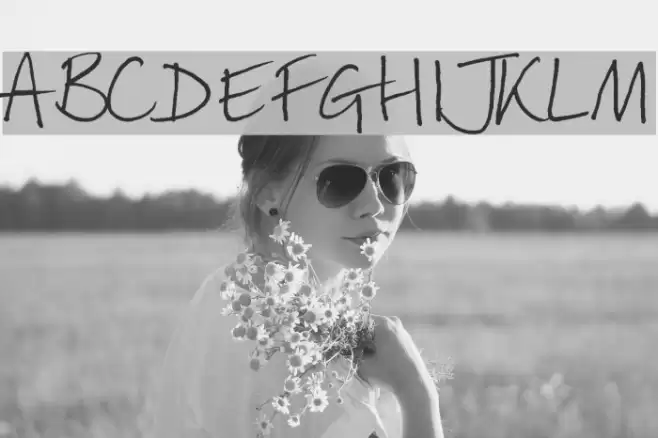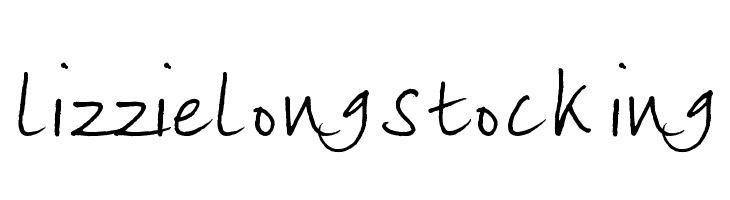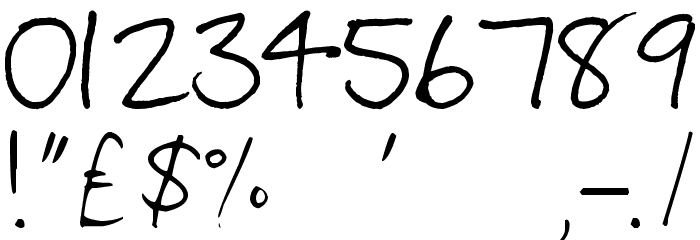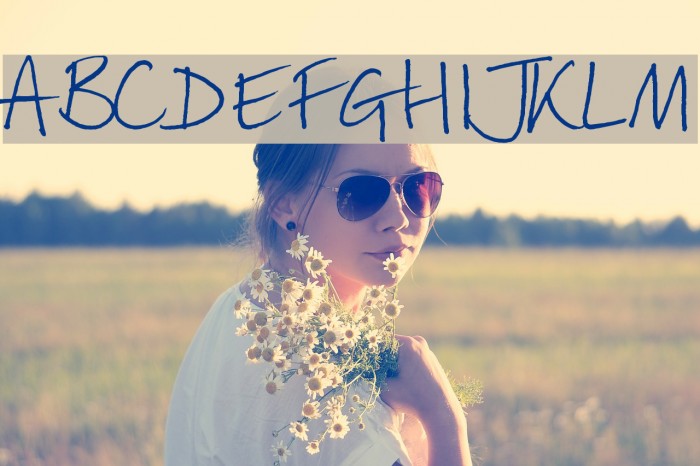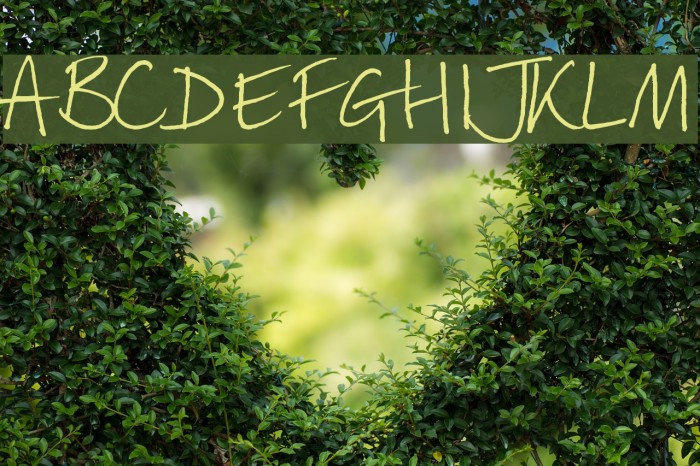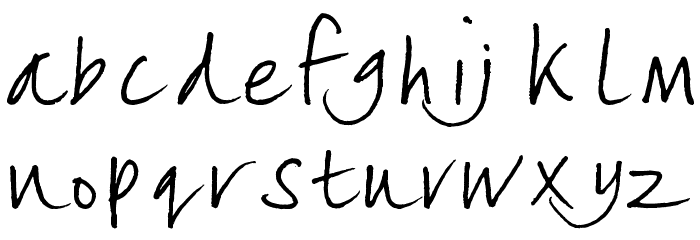
lizzielongstocking Font
lizzielongstocking Description
This font exudes a playful and casual handwritten style, characterized by its irregular strokes and natural flow. The letters are slightly slanted, giving them a dynamic and lively appearance. The uppercase letters are bold and expressive, while the lowercase letters maintain a consistent rhythm, enhancing readability. The numerals and special characters follow the same informal style, making them suitable for creative and artistic projects. The overall design is reminiscent of a personal note or a quick sketch, adding a touch of personality and warmth to any text.
A playful, handwritten font with a casual and dynamic style from Handwritten fonts.
- Proposed Projects: Ideal for greeting cards, personal notes, creative posters, and informal branding.
- Overall Style: Casual, Playful
- Use Case: Headlines, Informal text, Creative projects